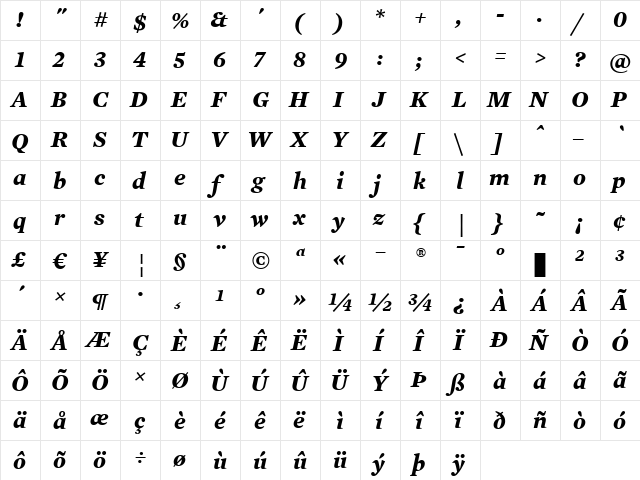
Mercury Text G1 Bold Italic
Design Context for Mercury Text G1 Typeface
Mercury Text G1 offers clean, dependable letterforms without strong stylistic allegiance, making it a practical choice for designers who need flexibility. The dynamic lean of this cut emphasises speed and emphasis in any layout. The heavy weight commands attention and anchors typographic hierarchies.
Pro Tip: Use Mercury Text G1 for emphasis, pull quotes, and subheadings where its slanted energy can add rhythm to the layout.